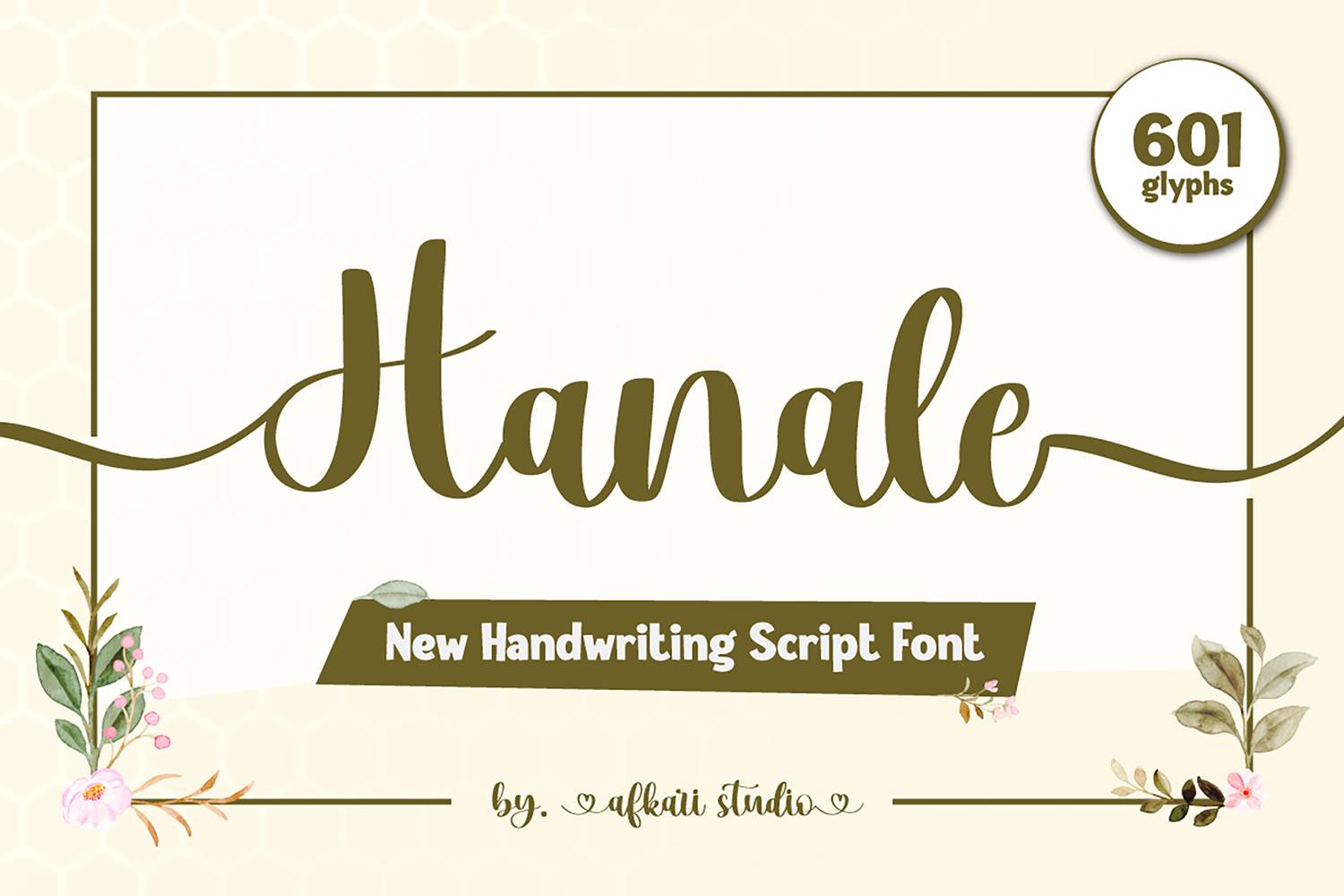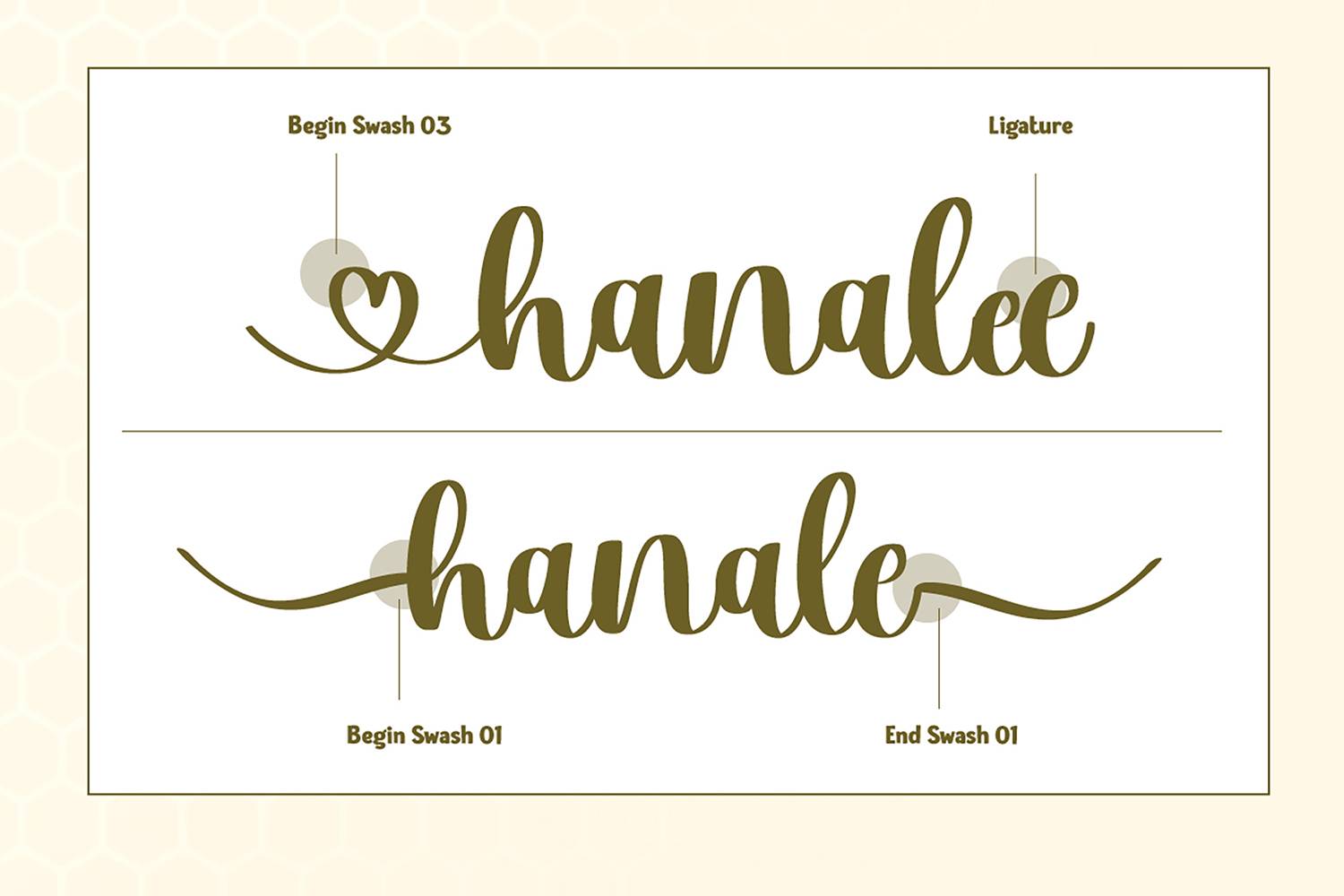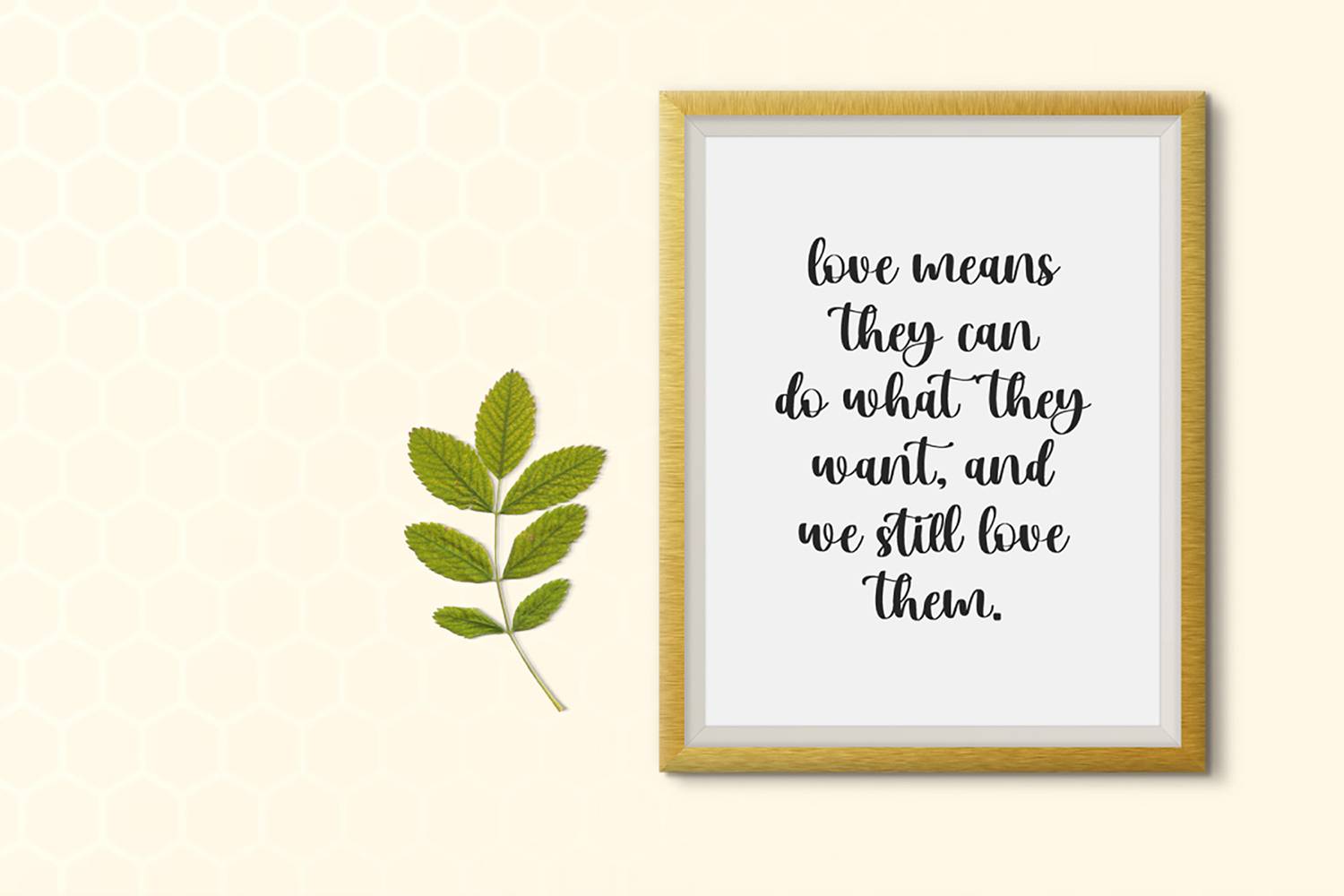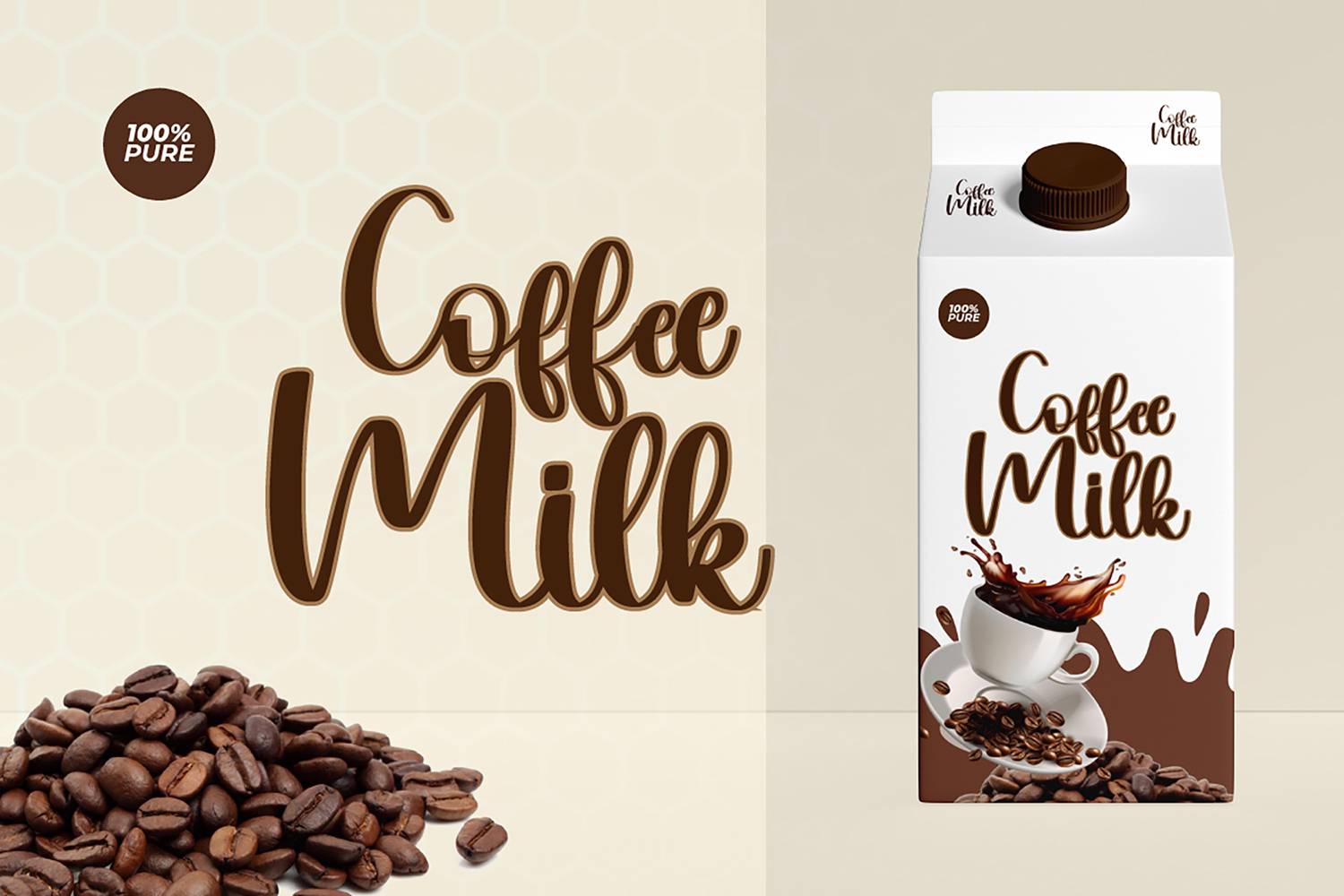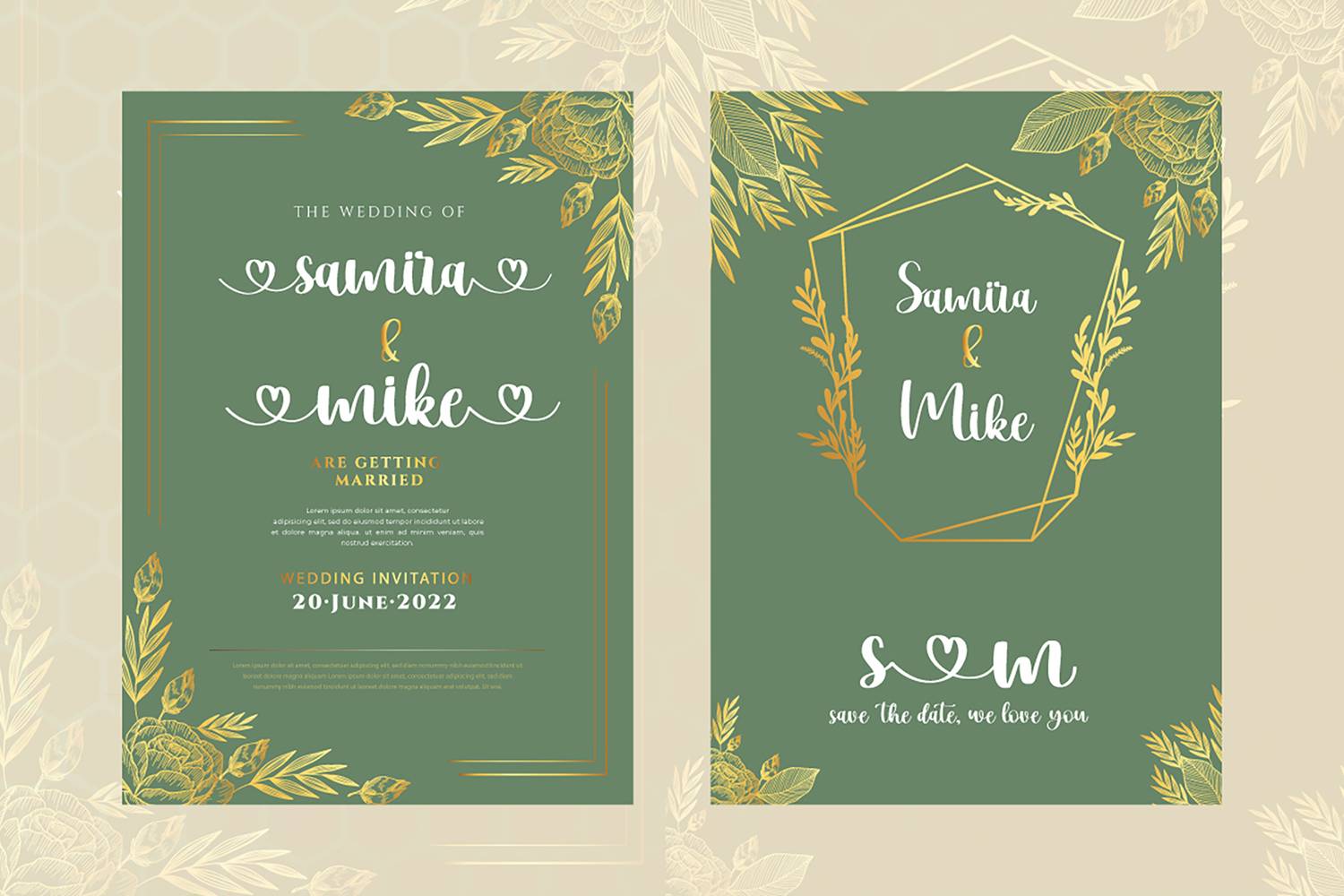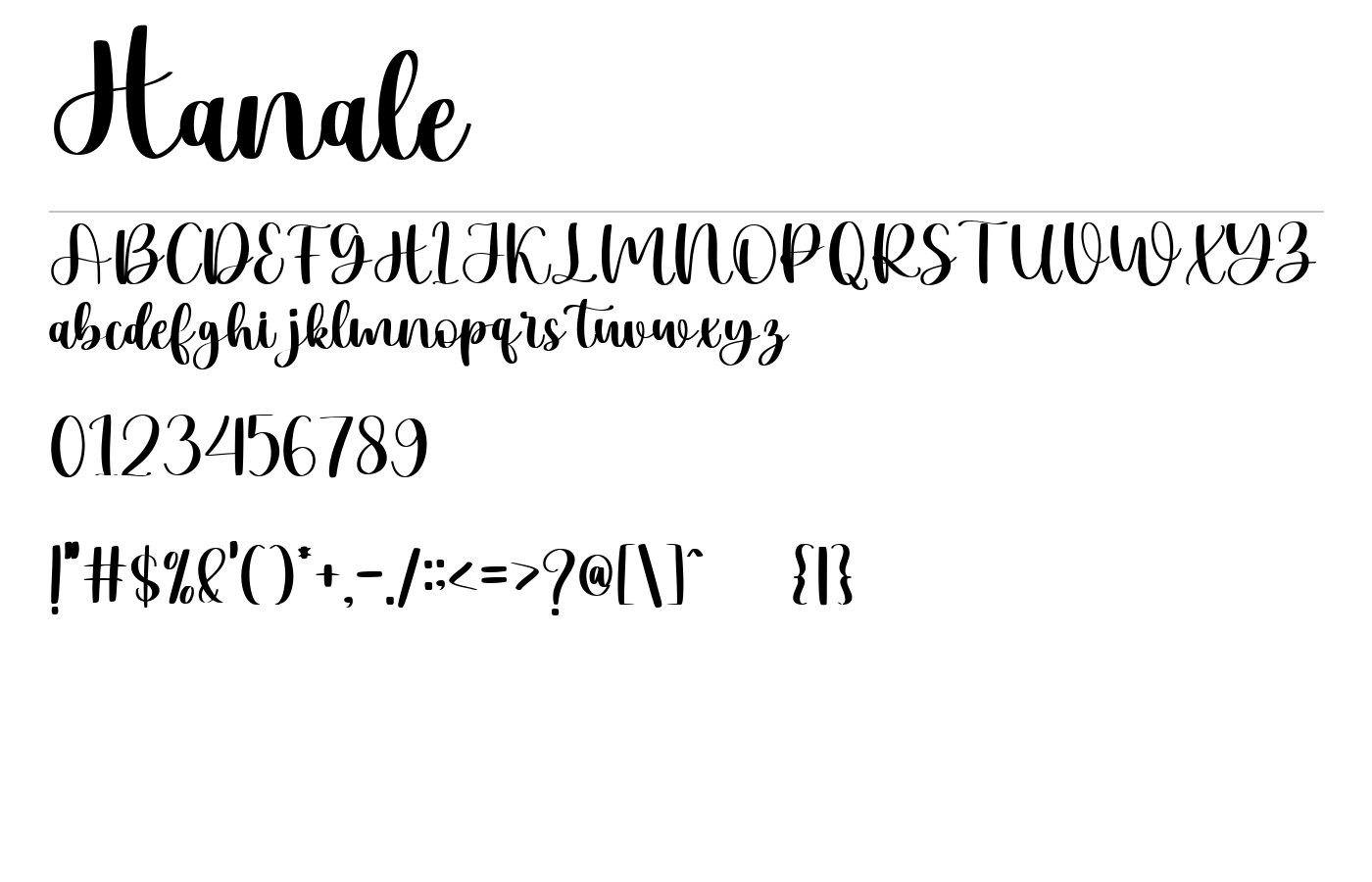
Hanale is a stylish script font that features elegant, flowing letterforms with a playful touch. Its medium weight and smooth curves create a warm and inviting feel, making it perfect for branding, invitations, or any design needing a personal, handcrafted look. This font works well in headlines or logos where a decorative, sophisticated style is desired.
Hanale Font
About Hanale Font
| Font family | Hanale Font |
| Designer | Afkari Studio |